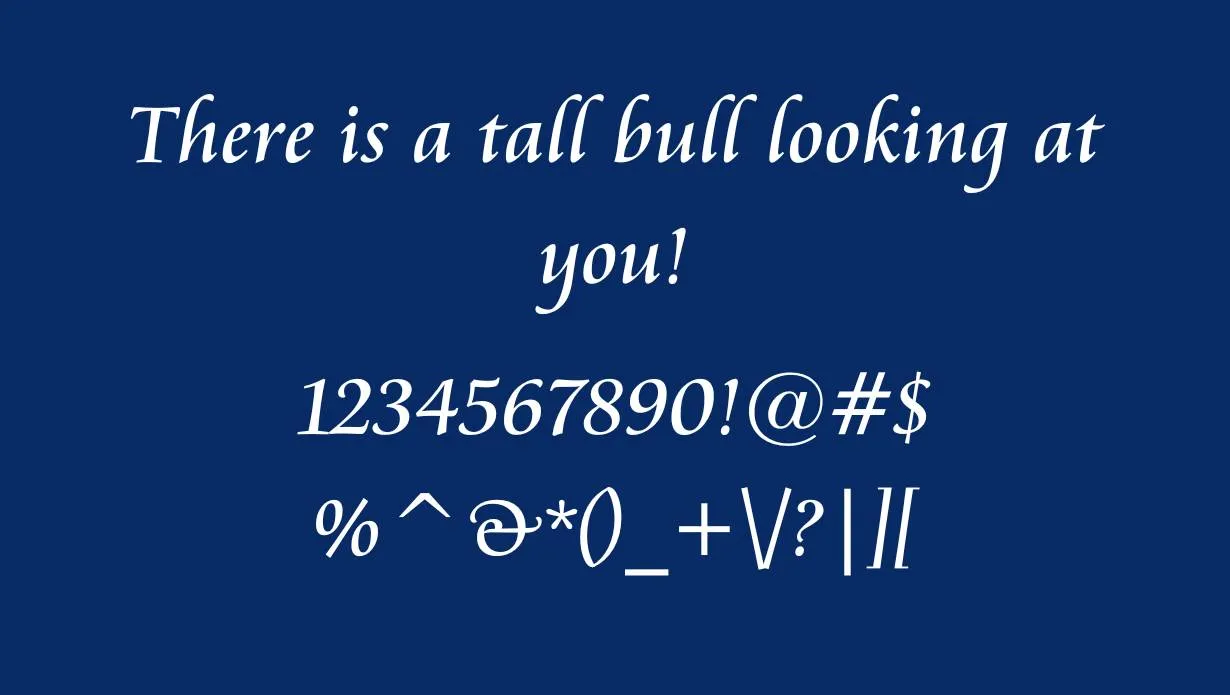
Cataneo BT is a font that gives your words a touch of elegance. It’s like wearing a sleek suit or a stylish dress for your letters. The lines are smooth, and each character has a refined appearance, making your text look sophisticated.
If you want your writing to have a classy and timeless feel, Cataneo BT could be the perfect choice. It’s like adding a touch of class to your words, making them stand out in a crowd.
| Name | Cataneo BT Font |
| Designer | Richard Lipton |